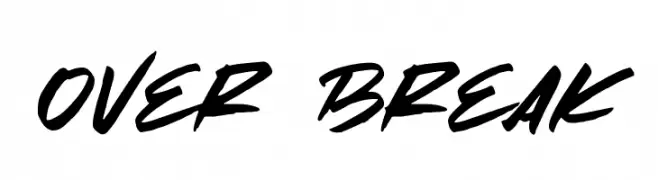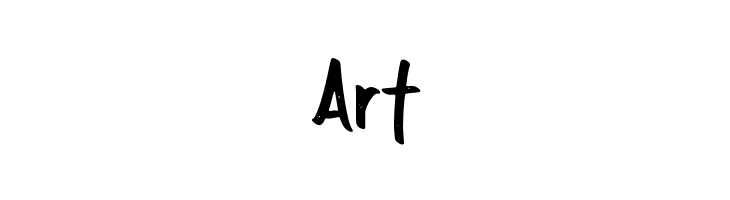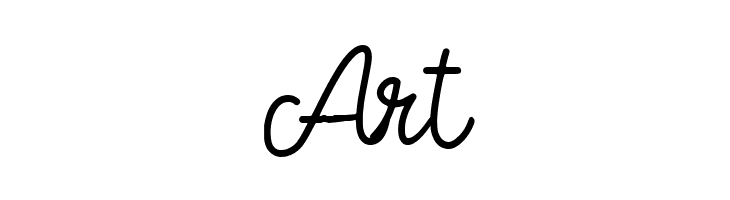
A decorative font with Western and retro influences, featuring ornate uppercase letters and clean numerals.
A bold, energetic script font with a modern, handwritten style.
A modern, geometric font with bold, rounded edges and a clean, structured appearance.
A bold, expressive handwritten font with a playful, artistic style.
A lively and dynamic script font with fluid, connected letterforms.
A thorny, decorative font with a rebellious and edgy style.
A playful and elegant script font with a handwritten, cursive style.
A bold, playful font with a strong, energetic presence.
A bold, brush-style font with an urban, graffiti-inspired aesthetic.
A casual, handwritten font with a playful and approachable style.